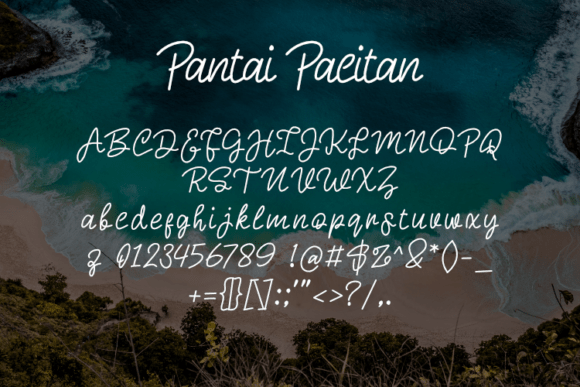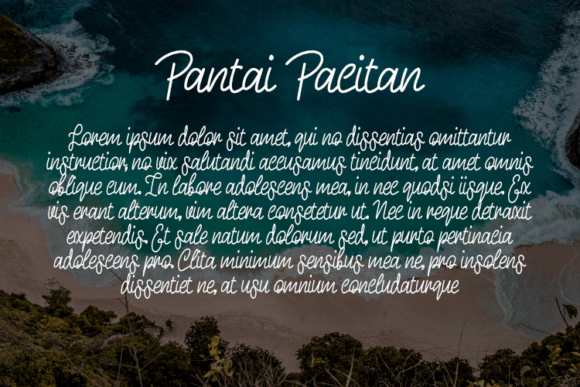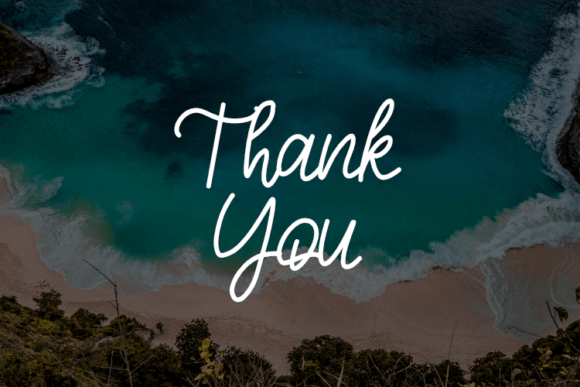
Introduction to Pantai Pacitan Font
Immerse yourself in the captivating beauty of “Pantai Pacitan” – an exquisite font designed to add a distinctive charm to fashion and lifestyle creations.
Ideal for apparel design, t-shirt emblazonments, and a panorama of merchandise, this font stands as a universally fitting choice, ensuring seamless compatibility across various design platforms The font comes in both otf and ttf file formats, ensuring a smooth design experience regardless of your preferred software.
Key Features of Pantai Pacitan Font
Why Choose Pantai Pacitan Font?
Pantai Pacitan Font offers exceptional quality and versatility, making it a valuable addition to your design toolkit. Whether you’re creating for personal projects or commercial use, Pantai Pacitan Font delivers professional results.